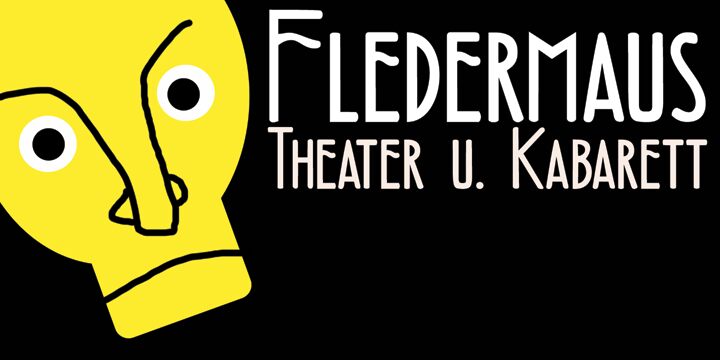
DK Fledermaus by David Kerkhoff is a free retro display font with the lanky elegance of early twentieth-century poster lettering. Its narrow capitals mix swelling curves with abrupt angles and uneven stroke widths. The result feels theatrical and slightly eccentric.
Cabarets, cocktail bars, and vintage fashion labels could use it to build a period-minded identity. It also suits music posters and book covers with a decadent or mysterious theme. The tall silhouettes can echo Art Deco architecture in border work and illustrations, turning the lettering into part of the scene.